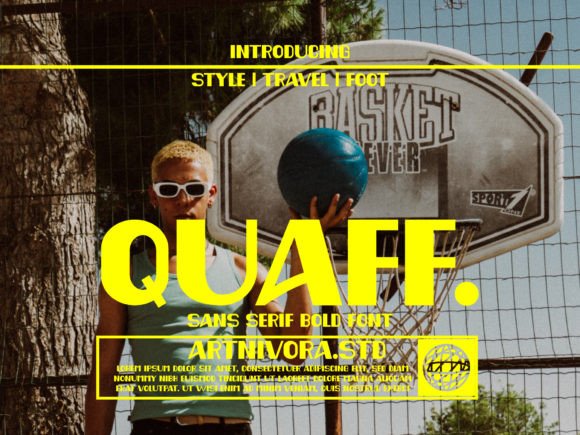
Behold Quaff Font: The Bold and Striking Sans Serif Font That Will Transform Your Creative Endeavors!
In a world clamoring for attention, distinction is the ultimate currency. Quaff Font, a daring and distinctive sans serif masterpiece, is your gateway to creating captivating designs that reverberate with individuality. Let your imagination run wild as you harness the power of Quaff Font to craft logos that command attention, magazine layouts that mesmerize, social media posts that electrify, and brochures that leave a lasting impression. Witness the metamorphosis of your creative concepts into stunning realities, amplified by the sheer brilliance of Quaff Font.
Unleash the Allure of Sans Serif: A Timeless Aesthetic for the Modern Visionary
Quaff Font embodies the essence of sans serif typography, characterized by its clean lines, geometric shapes, and absence of serifs – those tiny embellishments at the end of each stroke. This minimalist approach lends Quaff Font an air of modernity and sophistication, making it the perfect choice for forward-thinking designers seeking to make an impact.
Crafted with Precision, Engineered for Versatility: A Font for Every Occasion
Quaff Font's meticulously crafted characters exude a sense of precision and clarity, ensuring your designs appear polished and professional. Its versatility knows no bounds, seamlessly adapting to a myriad of design projects. Watch in awe as Quaff Font elevates your logos, transforming them into emblems of boldness and memorability. Design magazine layouts that captivate readers with their clean and contemporary aesthetic. Create social media posts that ignite engagement with their striking visuals. Craft brochures that leave a lasting impression, conveying your message with eloquence and impact.
Ignite Your Creativity: Let Quaff Font Unleash Your Inner Genius
With Quaff Font as your creative companion, mediocrity becomes a distant memory. This font is an open invitation to explore the depths of your imagination, to push boundaries and redefine the ordinary. Embrace the power of Quaff Font and embark on a journey of creative exploration, leaving a trail of visual masterpieces in your wake.